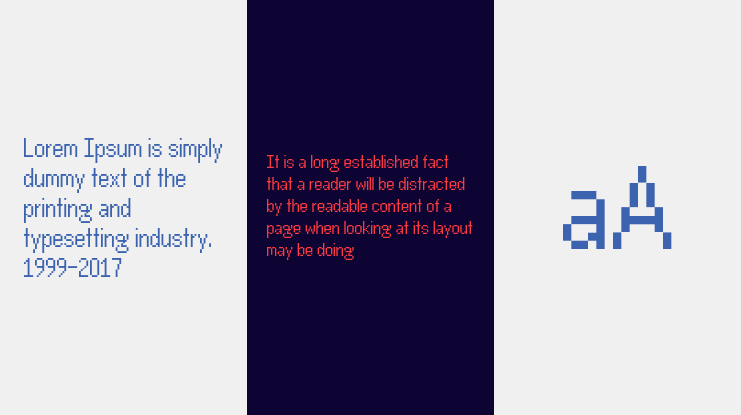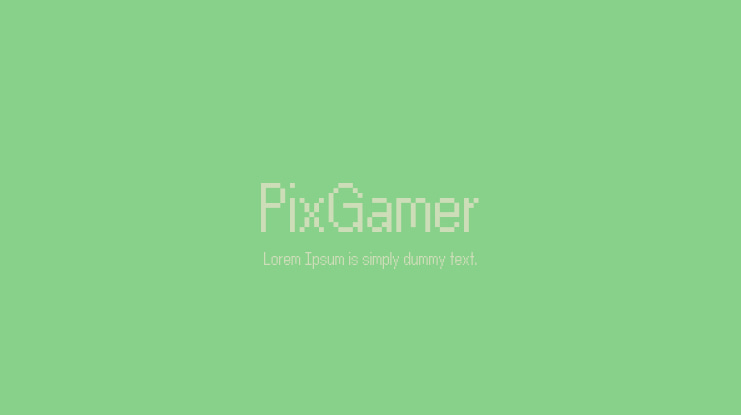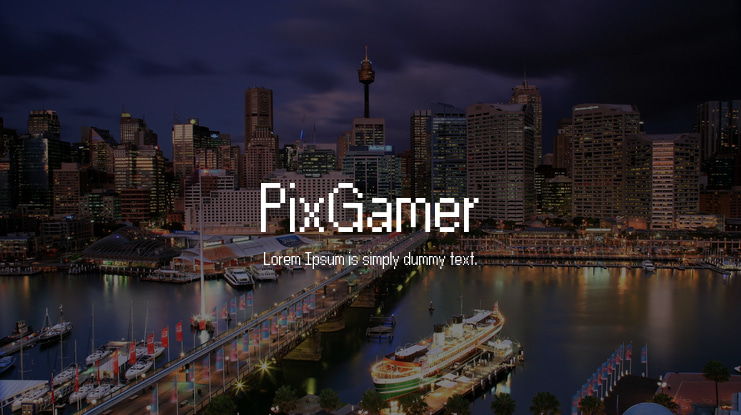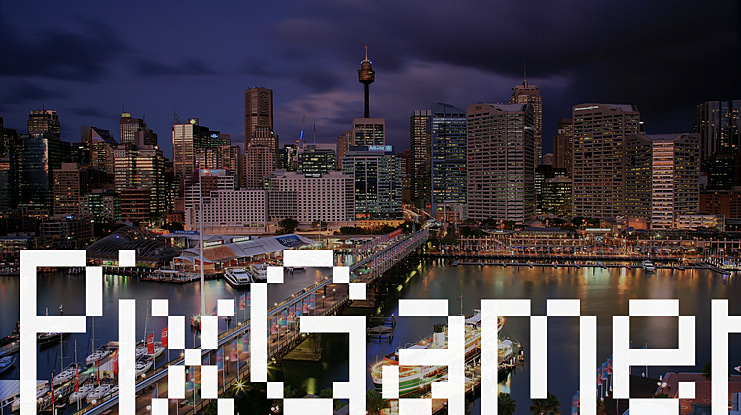
PixGamer Font
This font was developed in Bits'N'Picas, then edited further using FontForge.
This font works best at multiples of 12pts on Windows (16px). You can use it at other point sizes, it won't look very sharp at non-multiples.